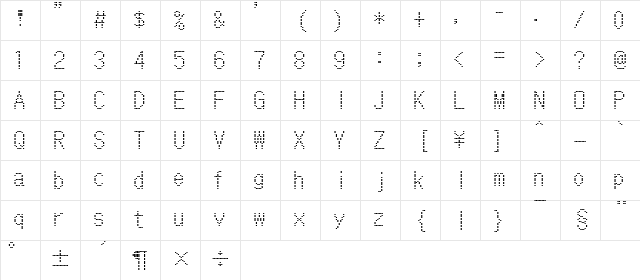
Fx^C16G Regular Free Font
Fx^C16G Regular
Design Context for Fx^C16G
Fx^C16G is a composed and adaptable typeface that performs quietly and consistently across a wide range of design contexts.